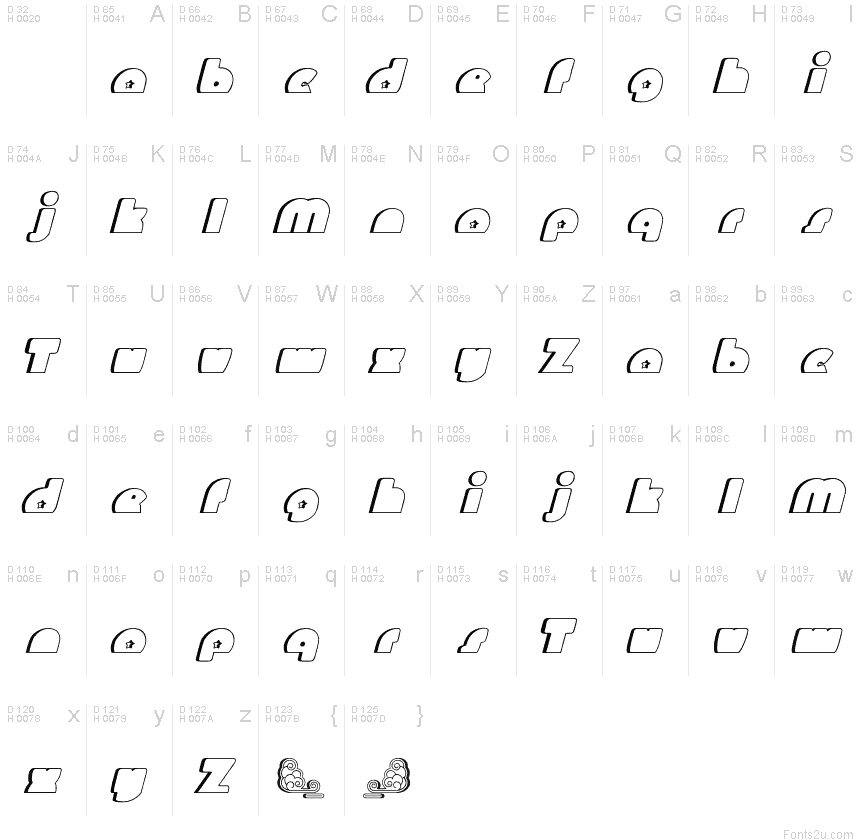
Mighty Gizmo is a free cartoon display font with broad, rounded letters and a buoyant hand-drawn outline. The strokes change width, and the forms lean or bulge in slightly different ways. Nothing feels mechanically squared off.
Space and science-fiction themes are a natural match for its inflated shapes, making it useful for game graphics and children's entertainment. It can also lend toy packaging the look of a friendly illustrated object rather than ordinary lettering. Those same soft contours link all three settings.
Mighty Gizmo